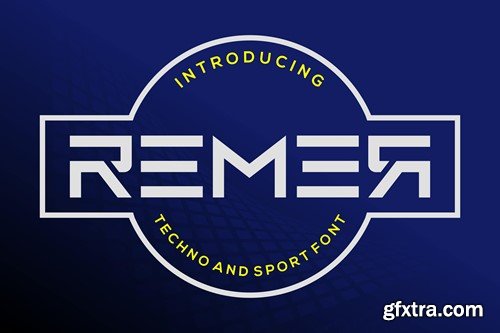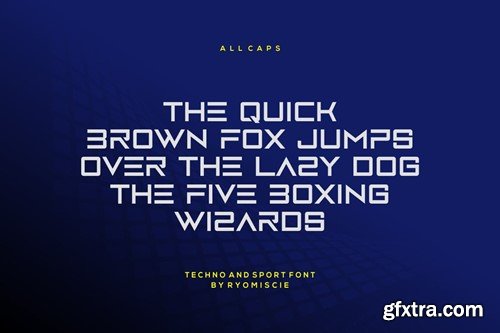
Remer - Techno And Sport Font
Introducing our new product Remer Techno And Sport Font Remer Modern Font is a bold and authentic display font. The font is suitable for any branding project like logo, t-shirt printing, esport, and many more. outstanding in a wide range of contexts. availlable